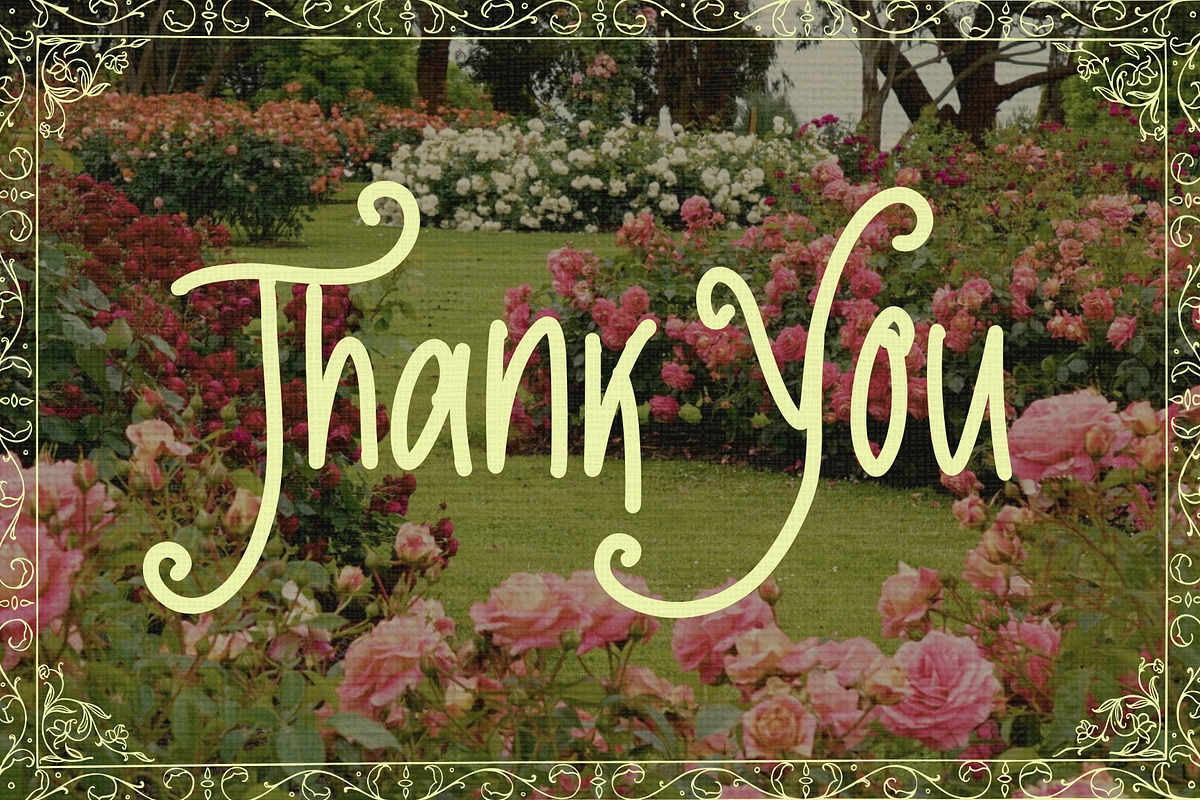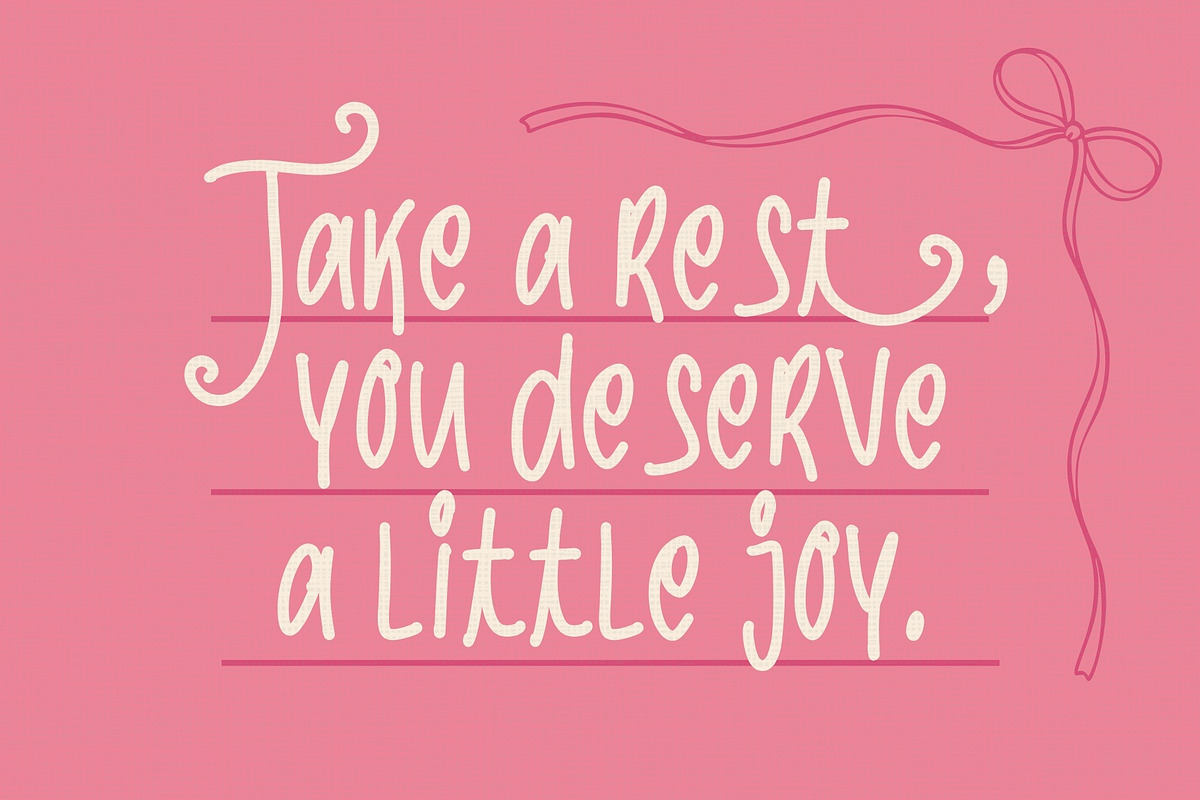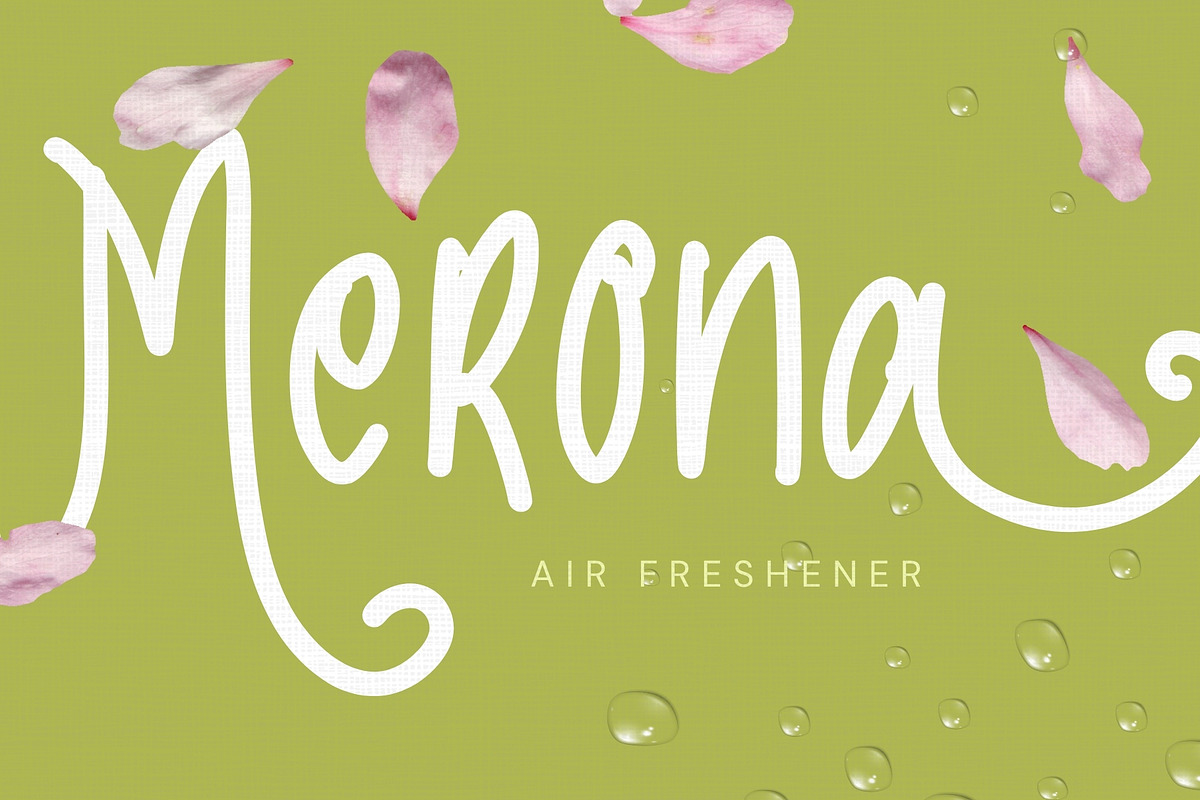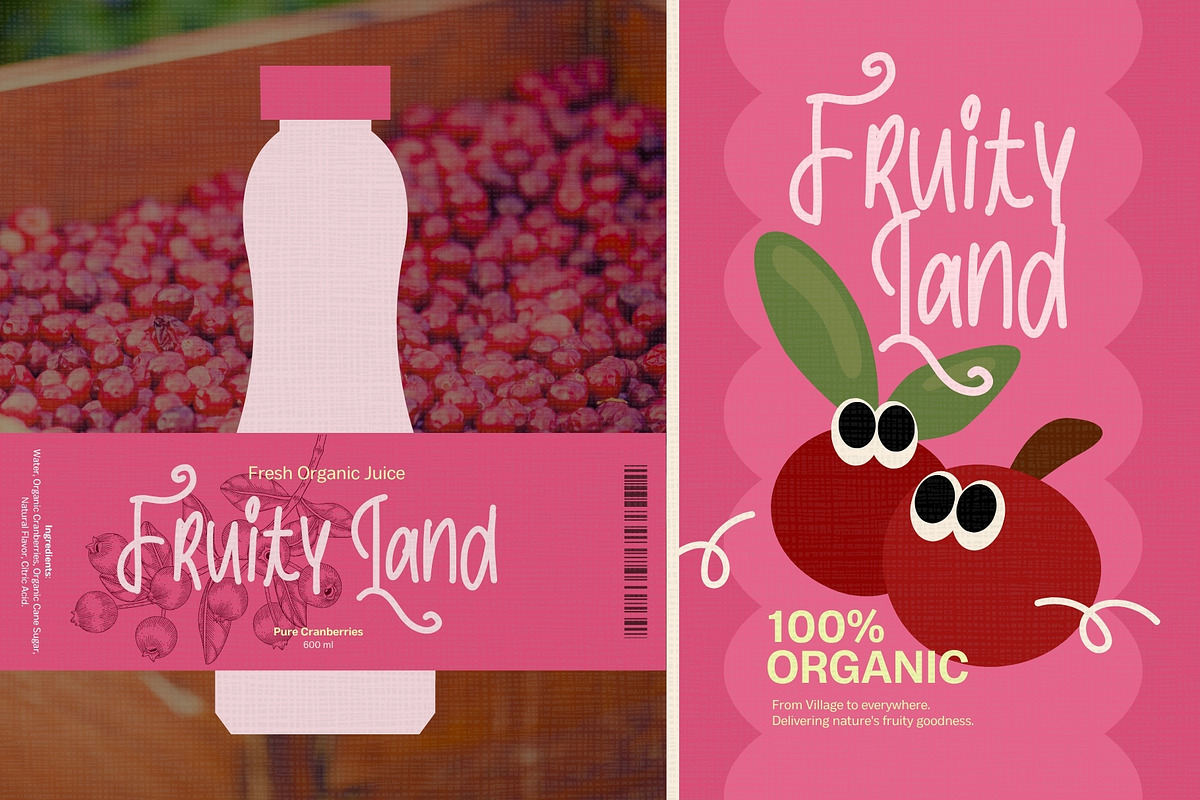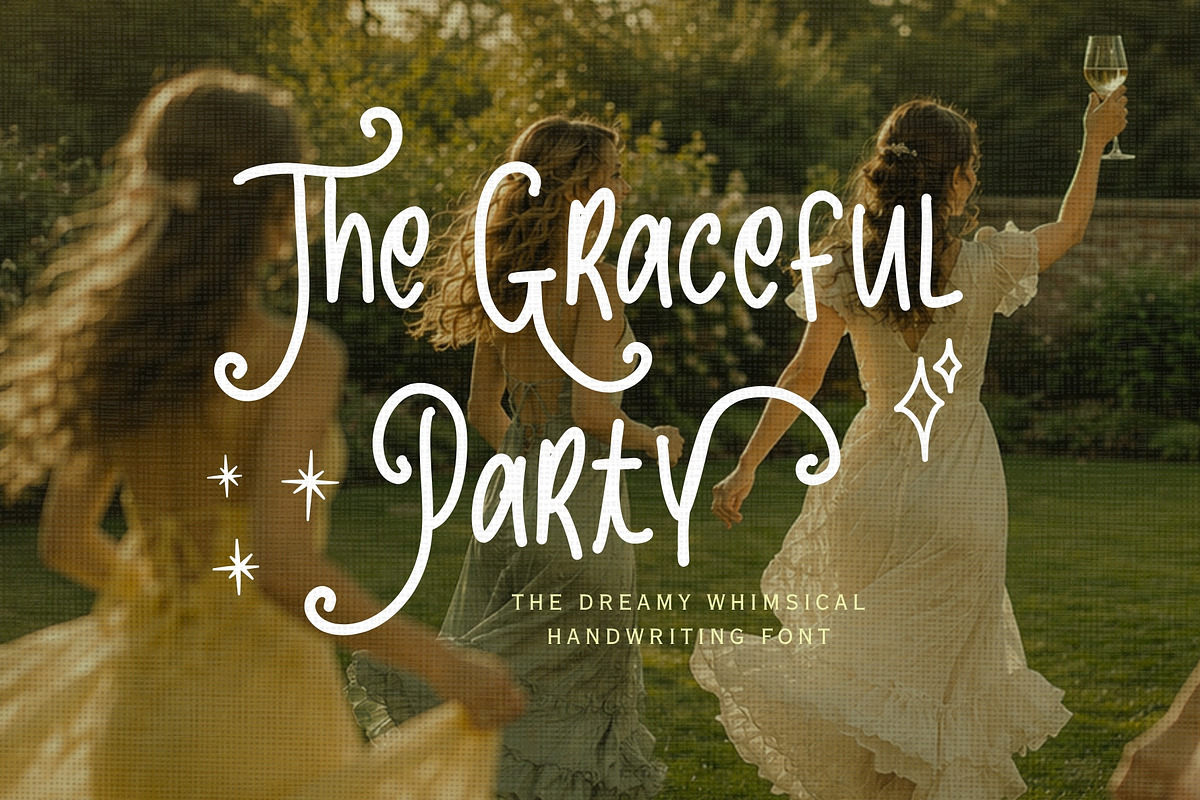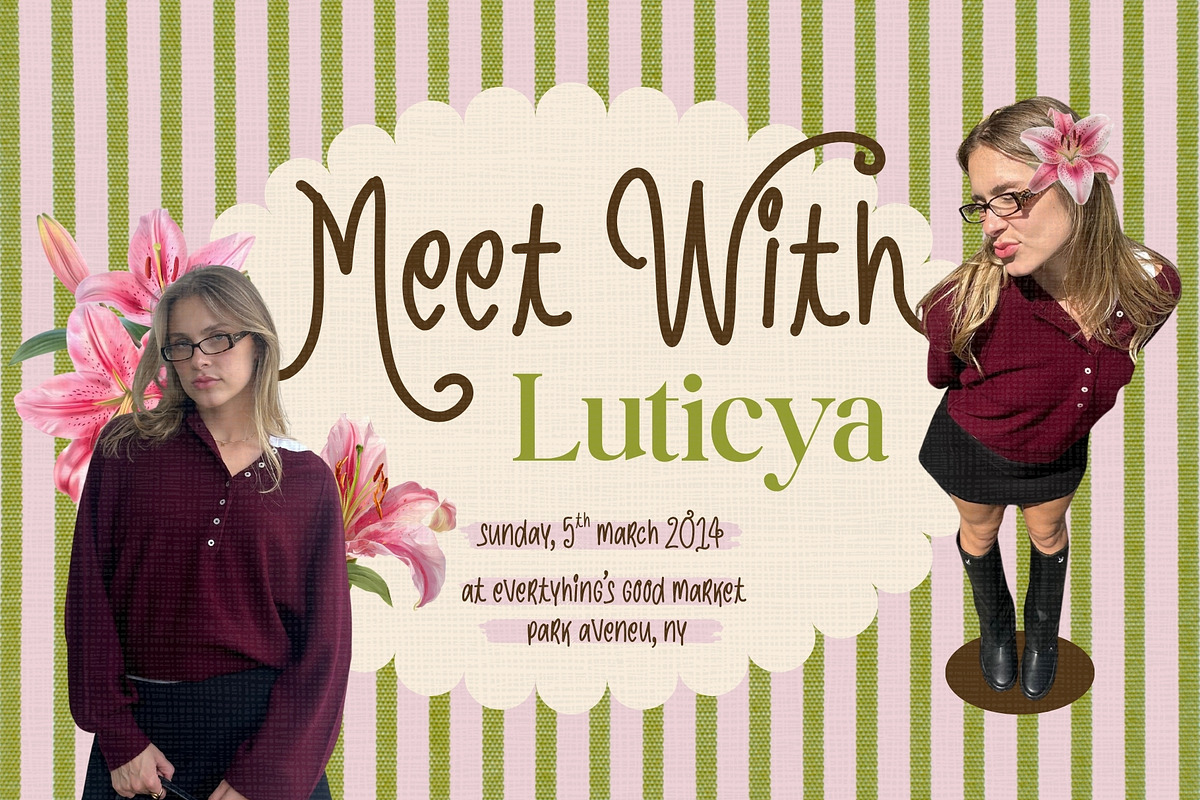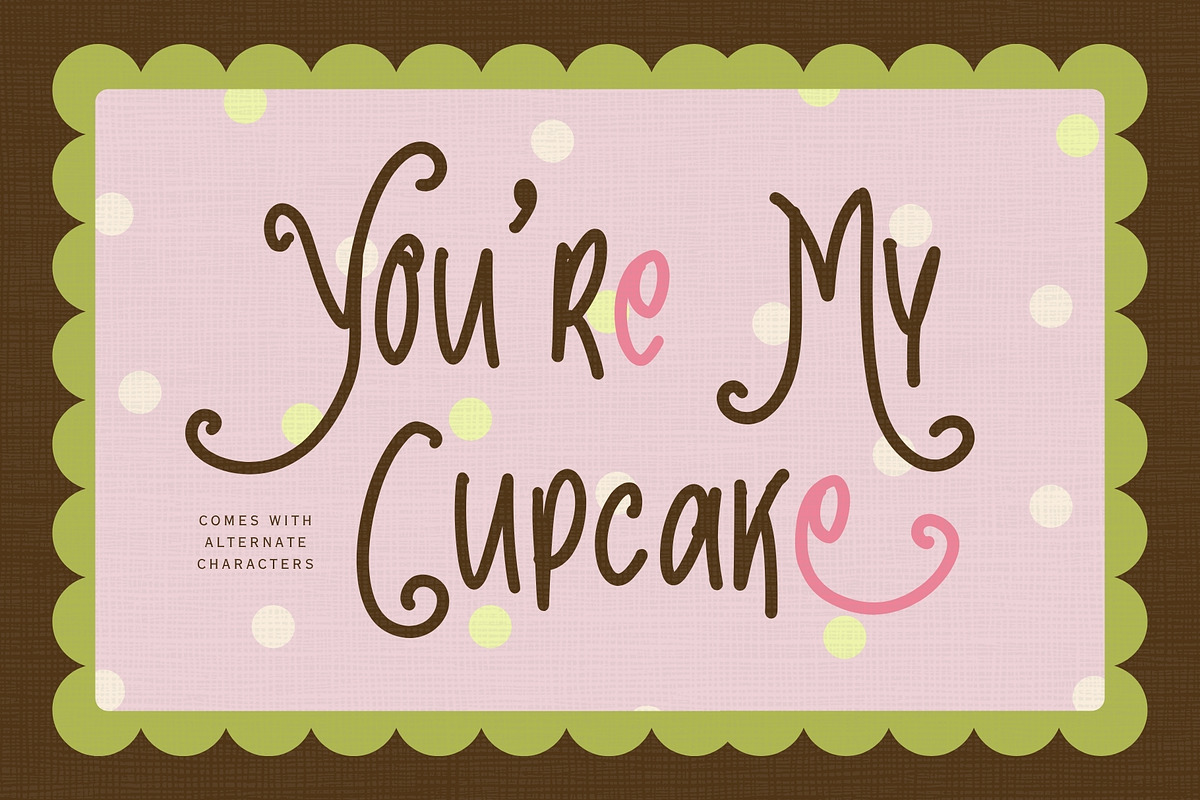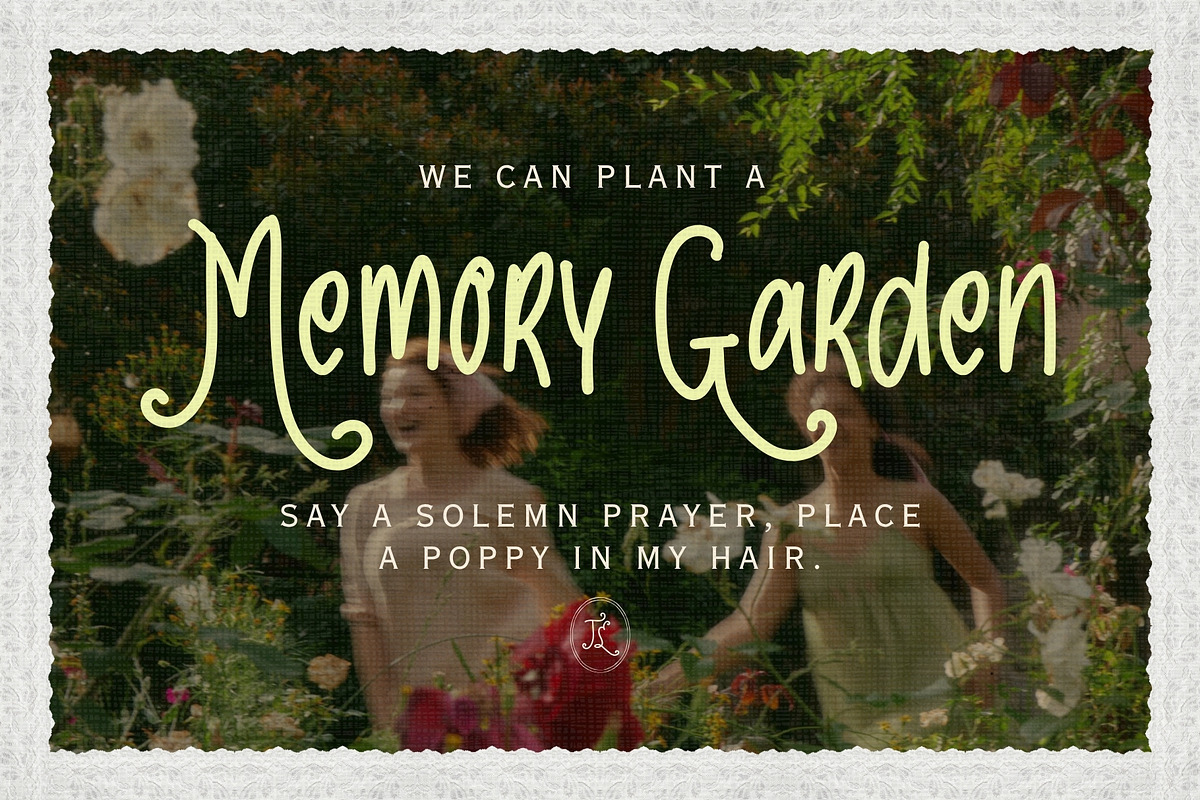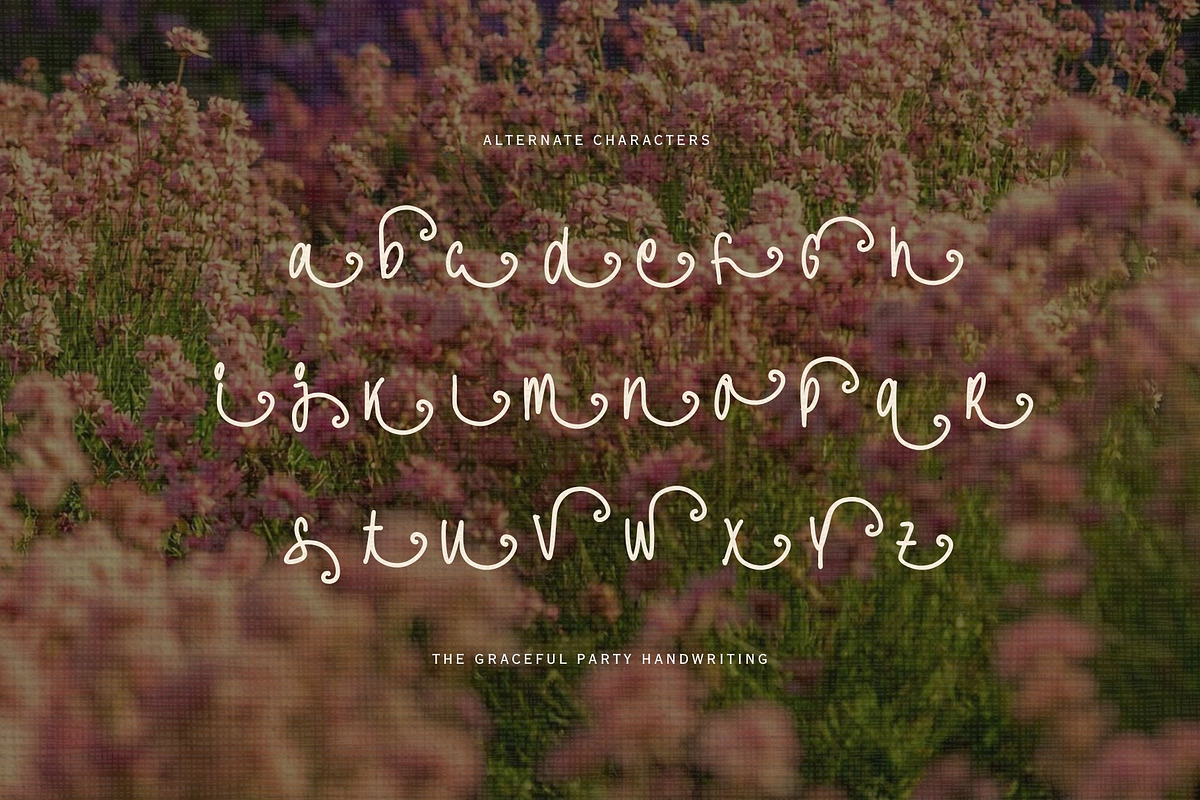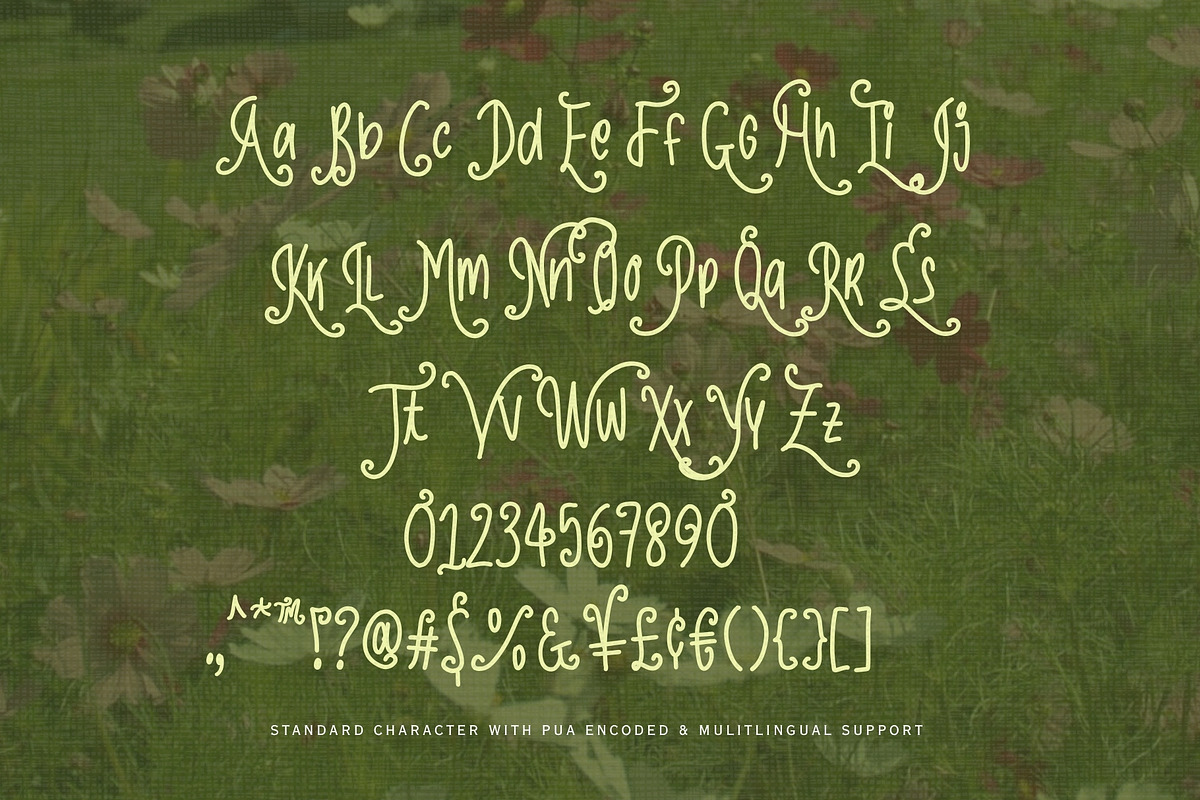
The Graceful Party Handwriting
There’s a light and dreamy feeling in The Graceful Party. With playful handwritten strokes, gentle curls, and whimsical details, it feels like laughter shared in a sunlit garden with friends.
The letters flow naturally with a soft feminine charm, making this font perfect for wedding stationery, party invitations, boutique branding, beauty packaging, social media, and creative projects that want to feel sweet, joyful, and effortlessly graceful.